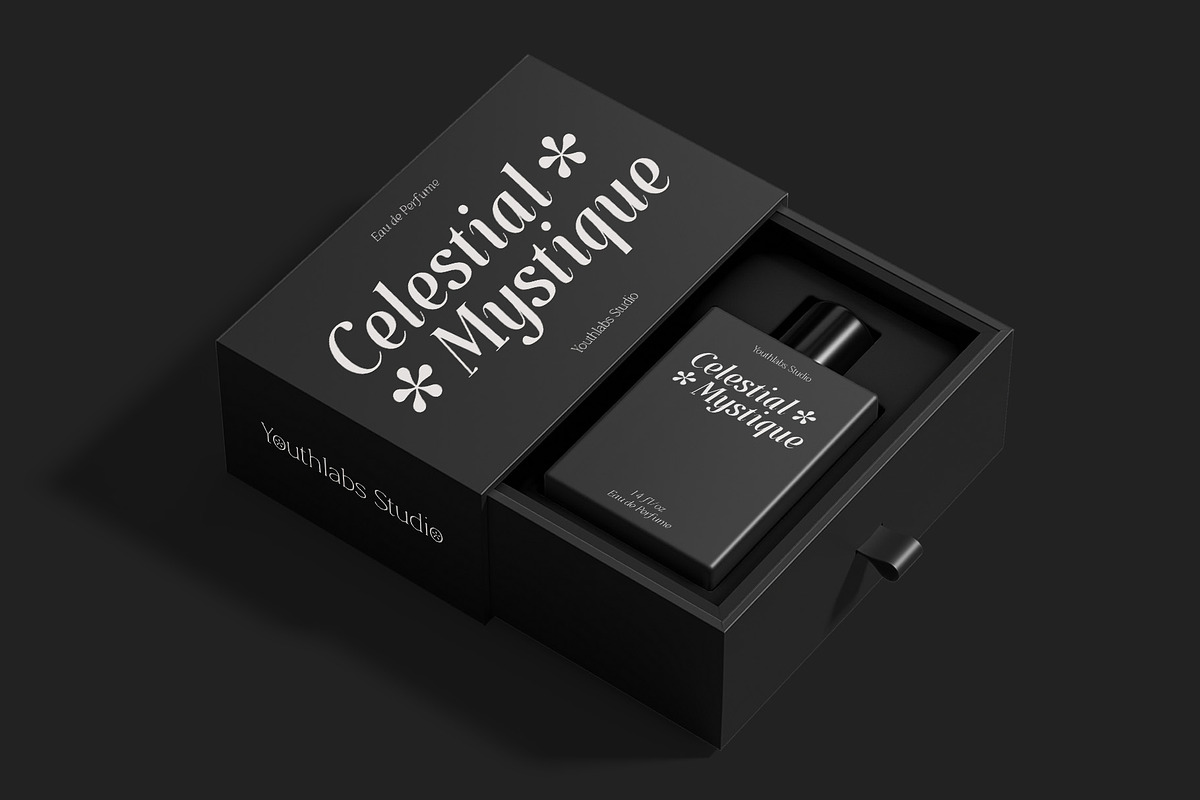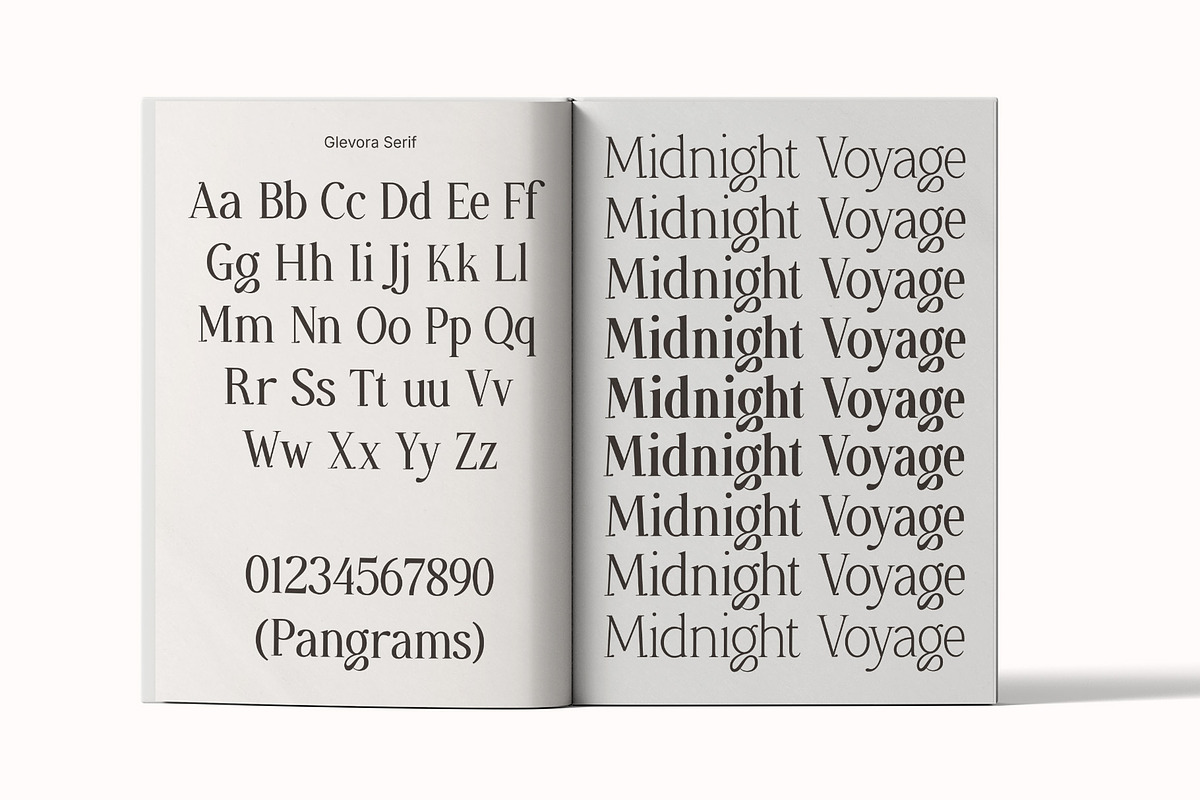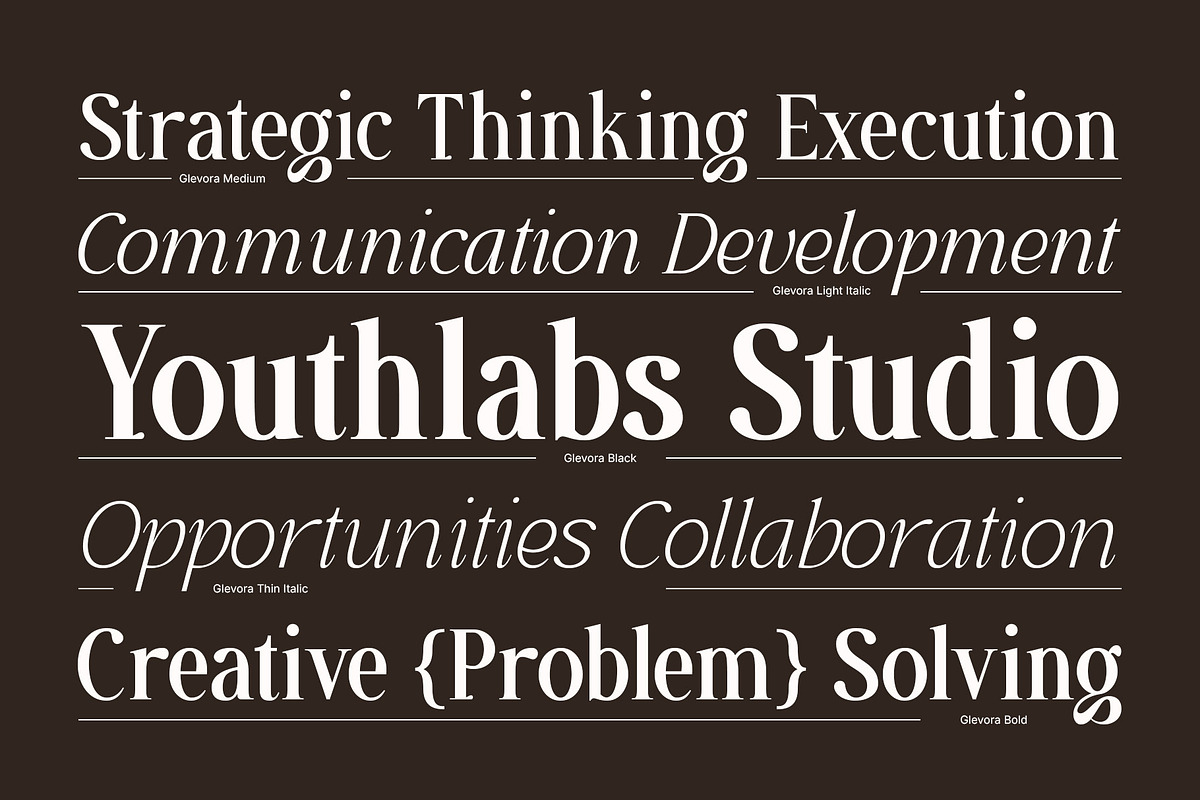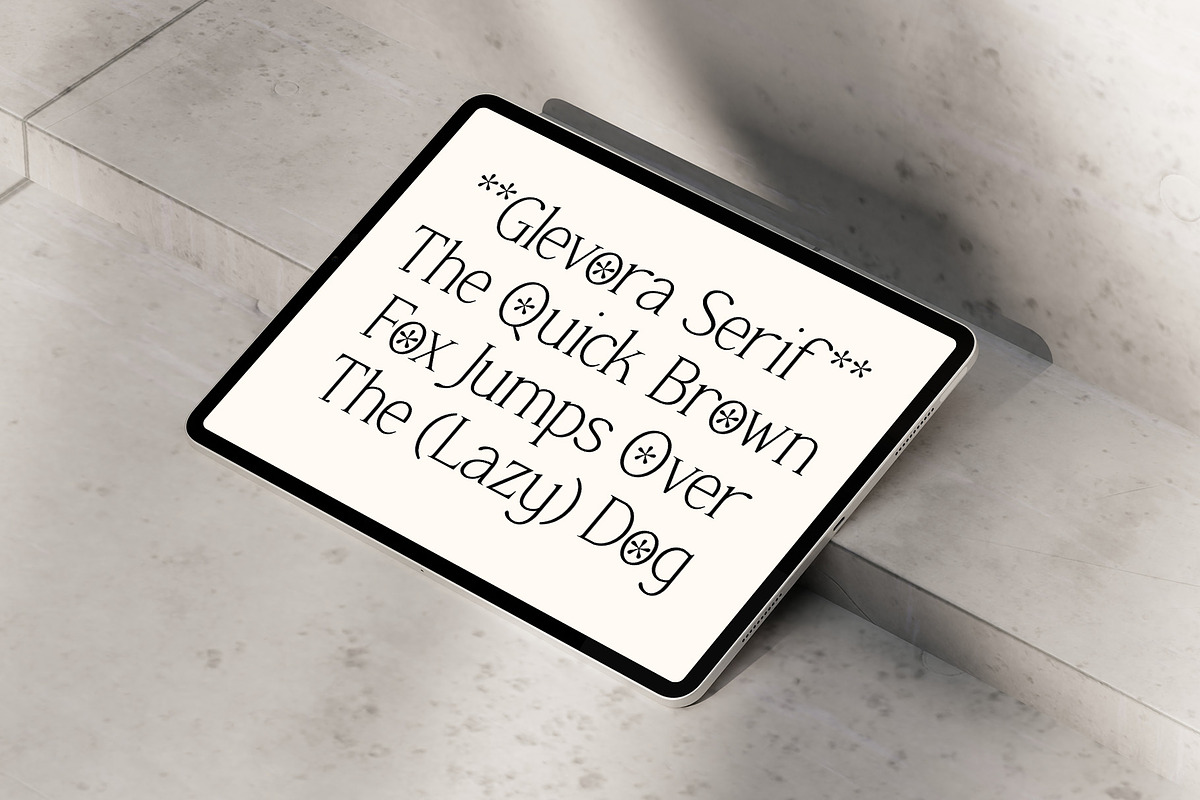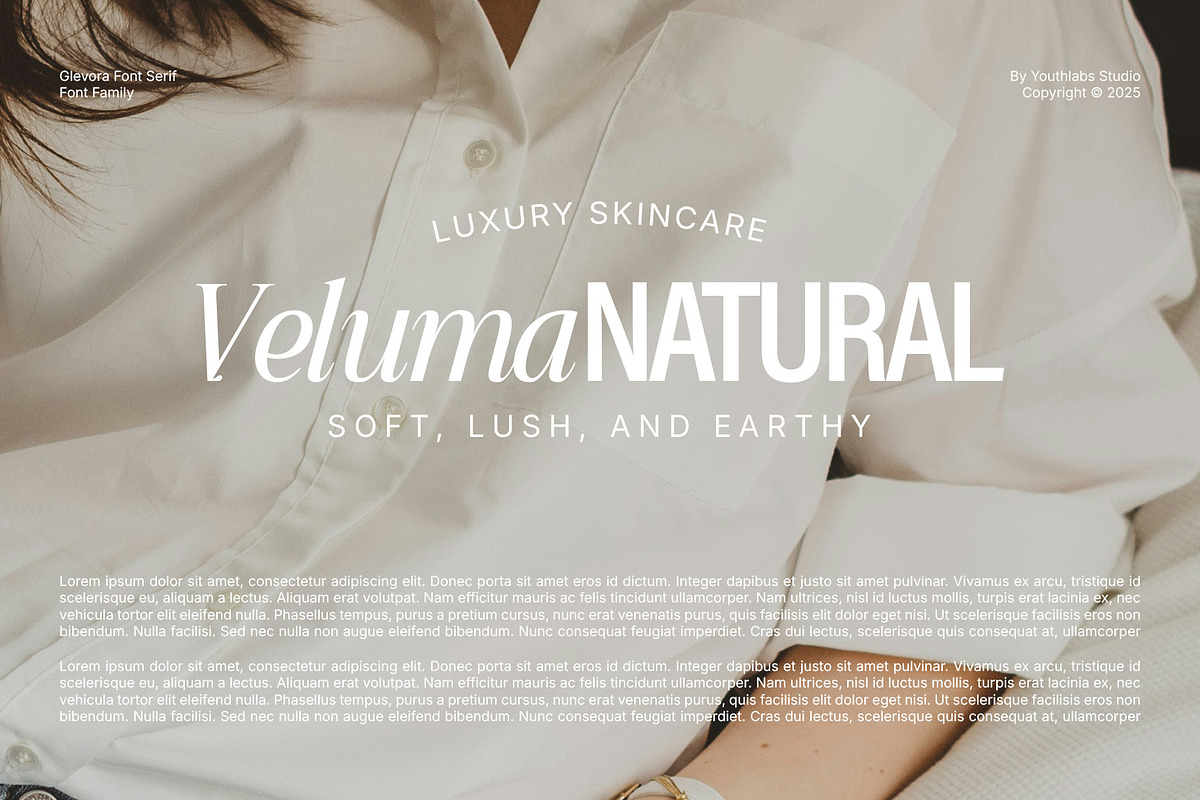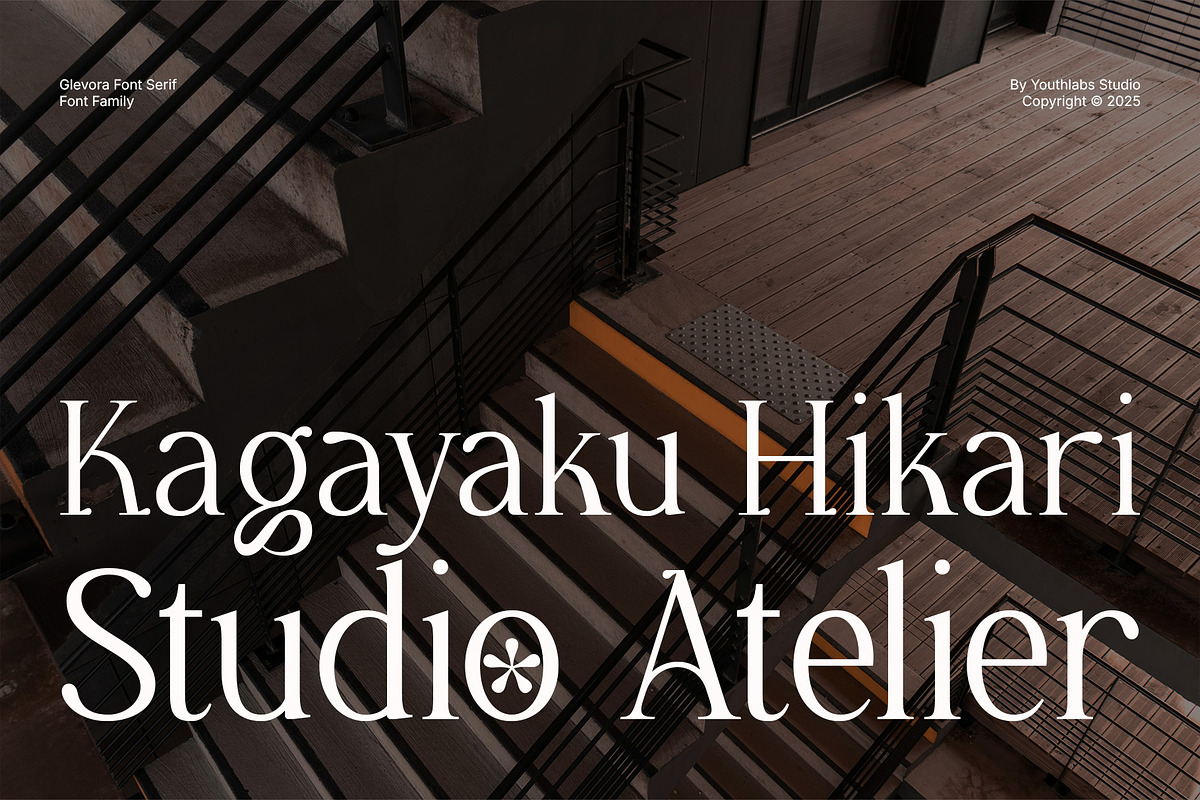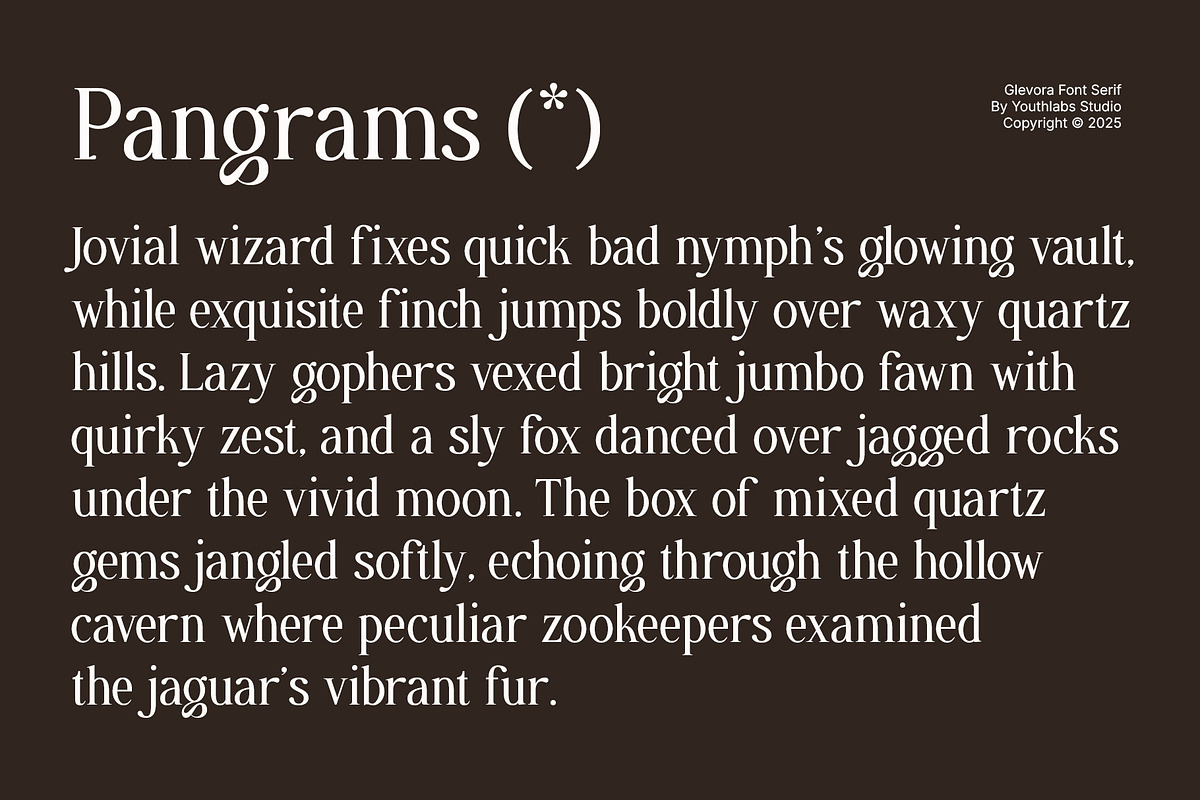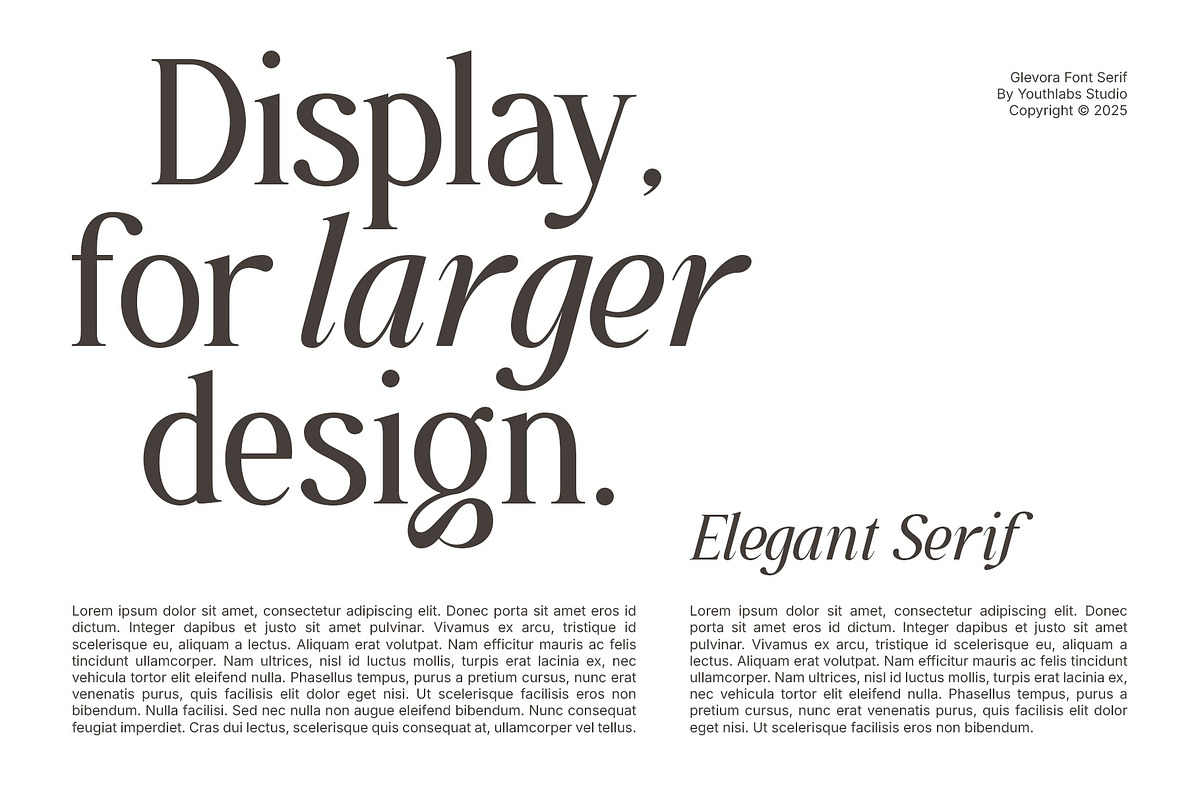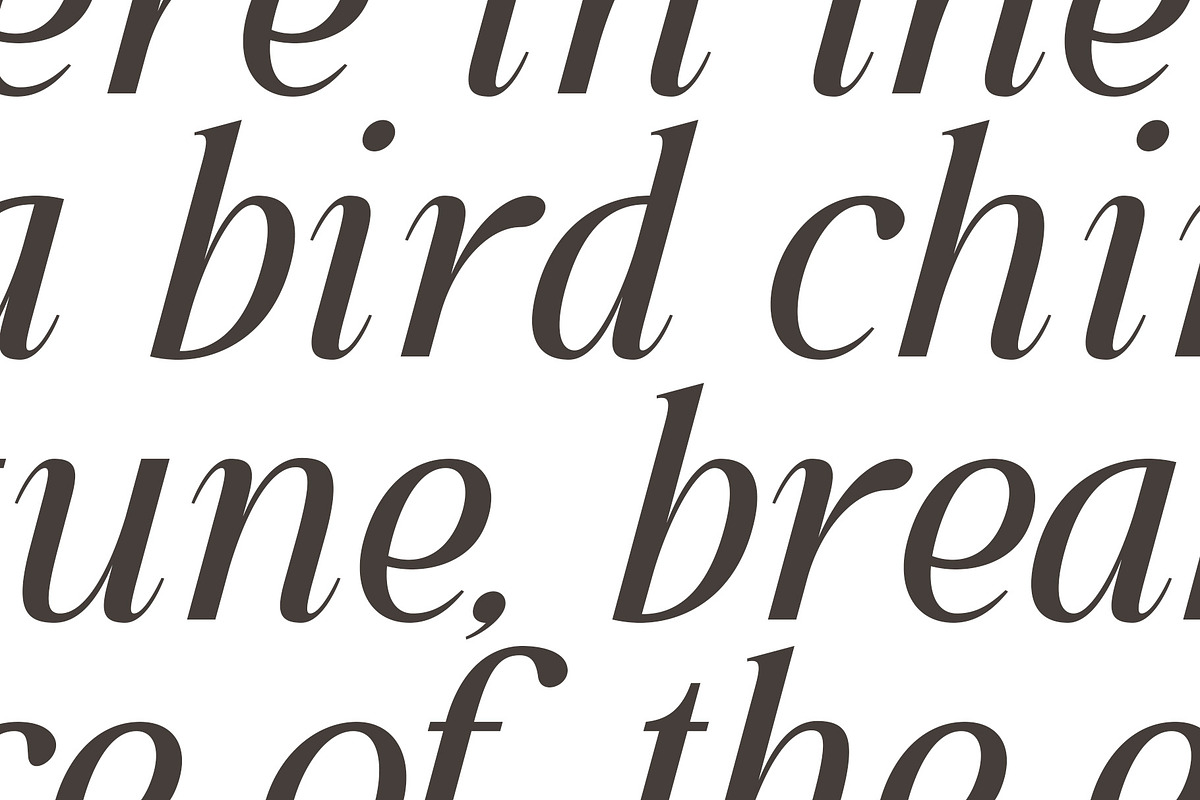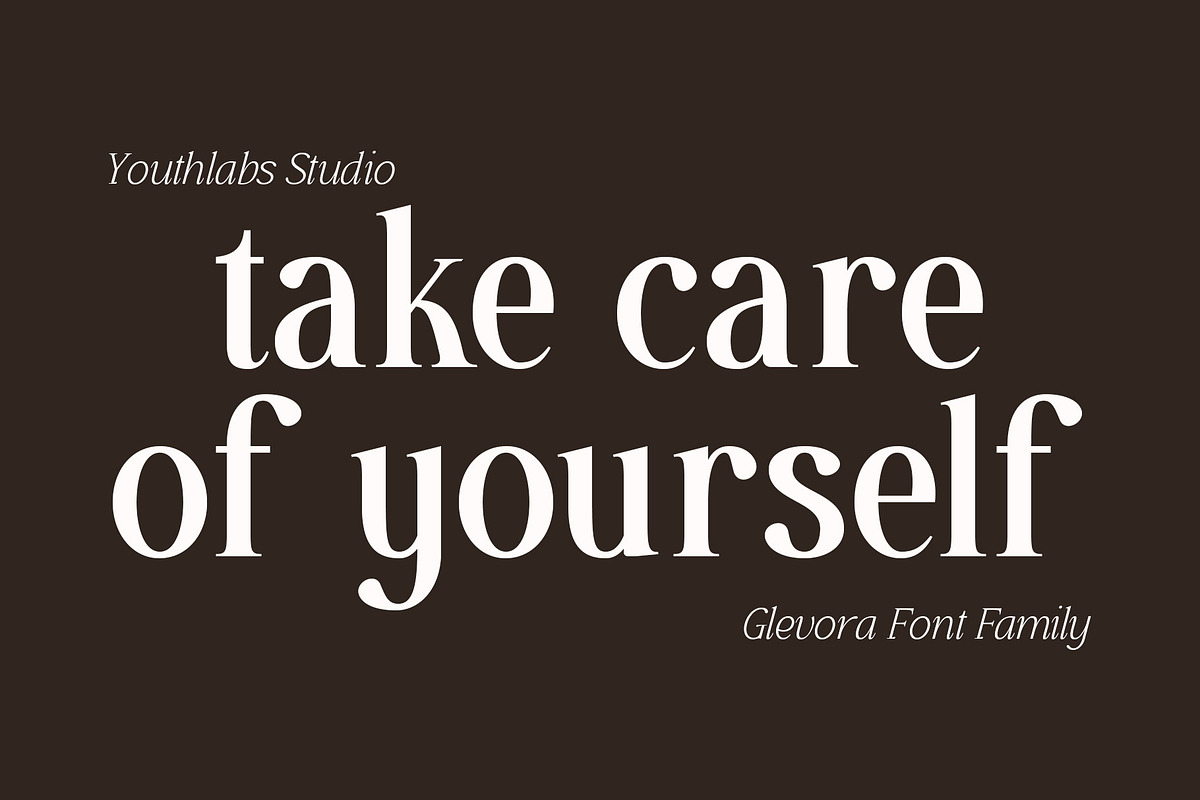
Glevora - Elegant Serif Family
Glevora Serif is a refined serif typeface that blends vintage charm with modern elegance. Designed by Youthlabs Studio, this font features soft, rounded terminals and playful flower-inspired asterisks that bring a sense of whimsy and sophistication. With its high contrast strokes and graceful curves, Celestial Mystique is perfect for beauty products, high-end packaging, editorial design, and lifestyle branding. Whether used in large headlines or elegant logotypes, Celestial Mystique delivers personality and presence—capturing the essence of timeless allure with a contemporary twist.
What's The Feature ?
- Stylistic Alternate
- Stylistic Ligature
- Font Family
- Opentype Support